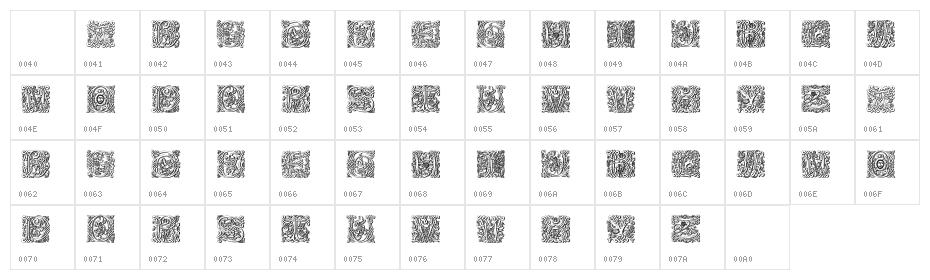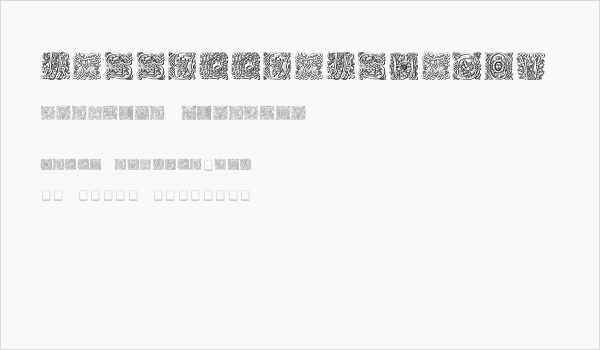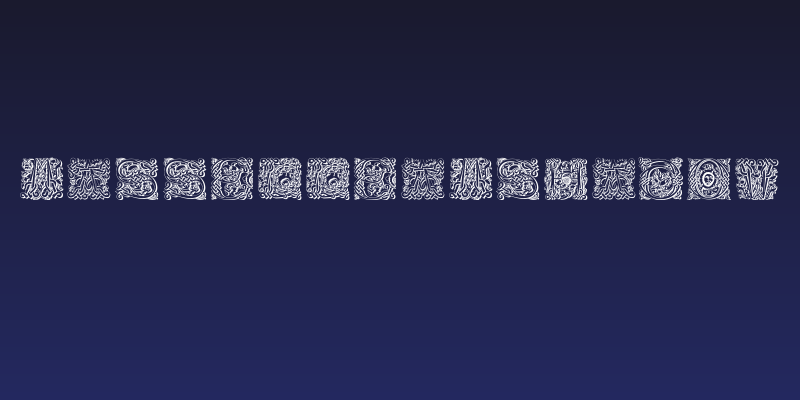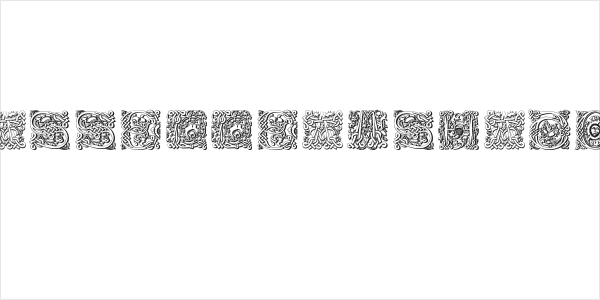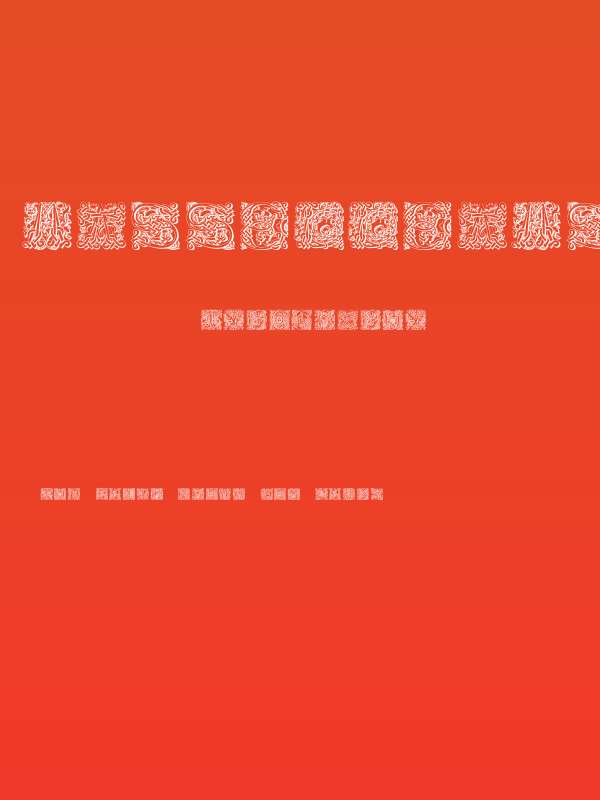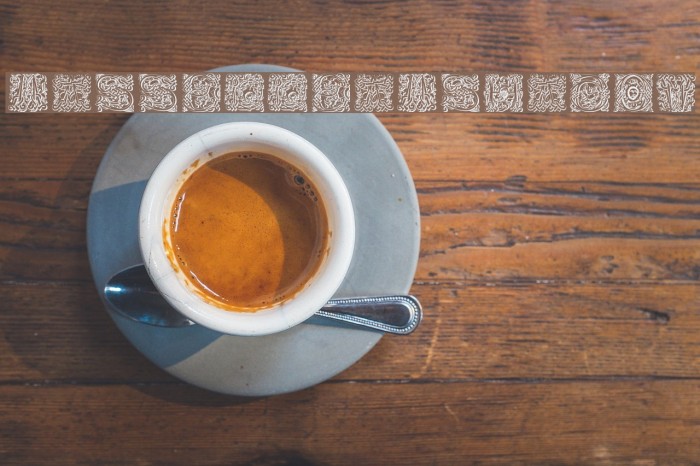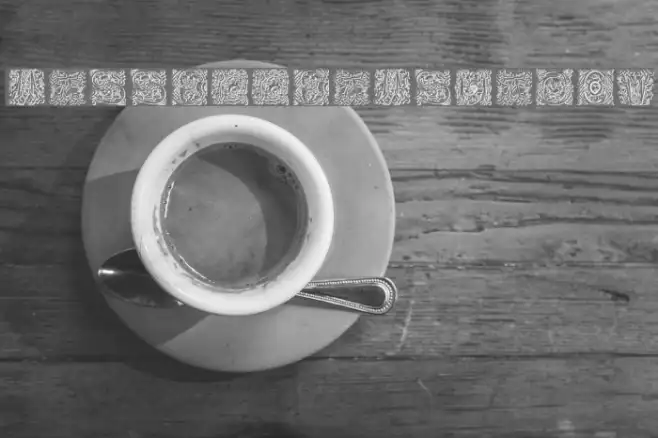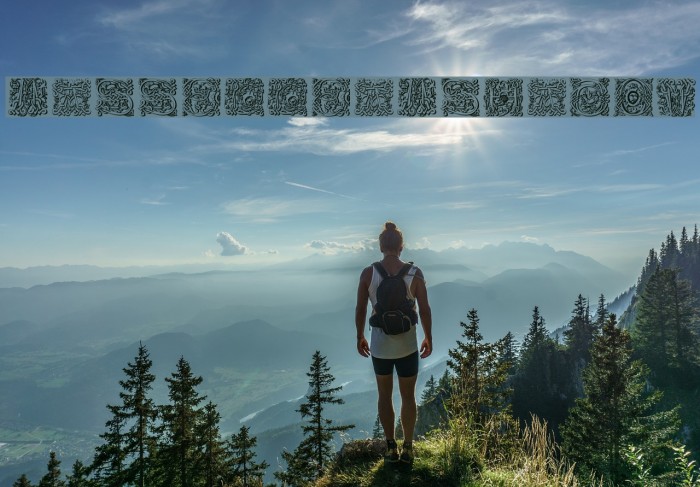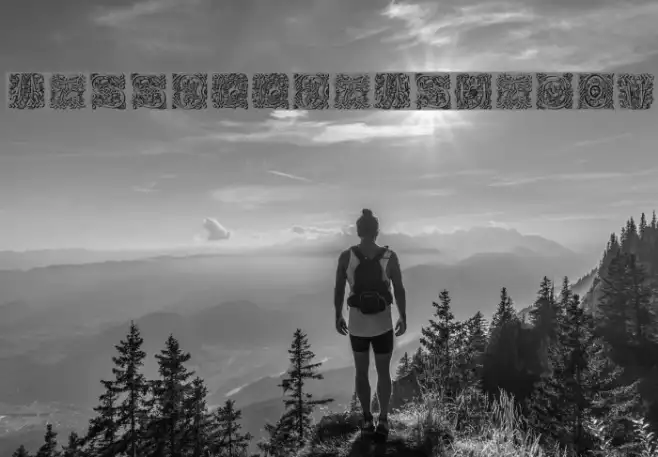
MasselleAMShadow Font
MasselleAMShadow Description
This font is an intricate and highly decorative typeface featuring elaborate swirls and flourishes within each character. The ornate design gives it a luxurious and artistic feel, making it stand out as a unique choice for creative projects. Each letter is encased in a square, adding a structured element to the otherwise fluid and dynamic design. The complexity of the patterns within the characters suggests a hand-drawn quality, reminiscent of vintage or classical styles. This font is ideal for projects that require a touch of elegance and sophistication, such as invitations, branding for luxury products, or artistic posters.
| Proposed Projects | Ideal for wedding invitations, luxury branding, artistic posters, and decorative headings. |